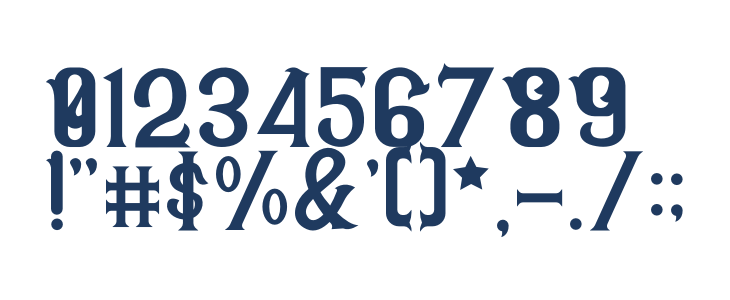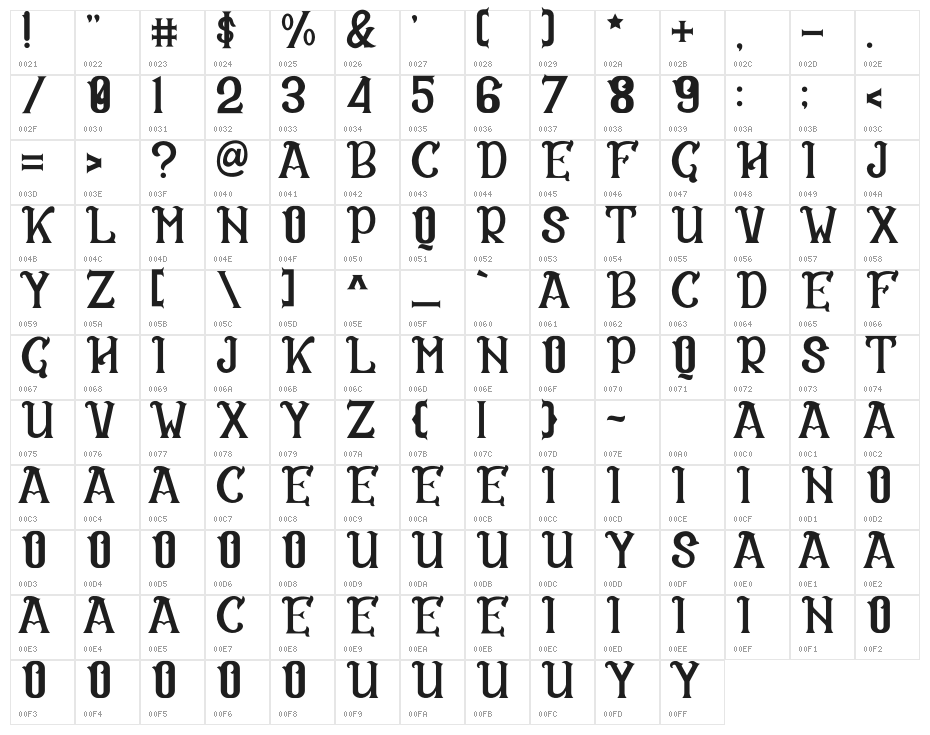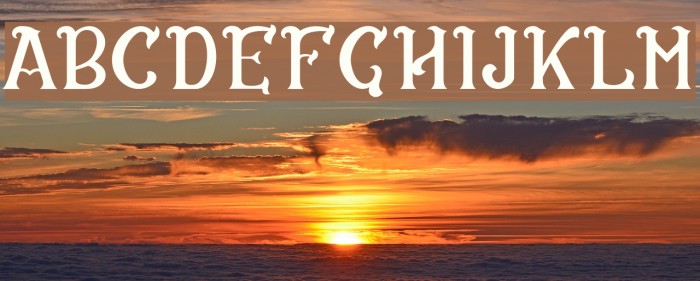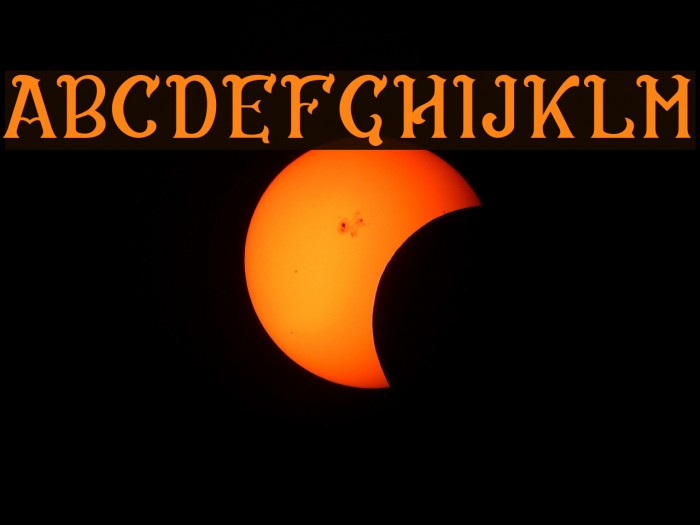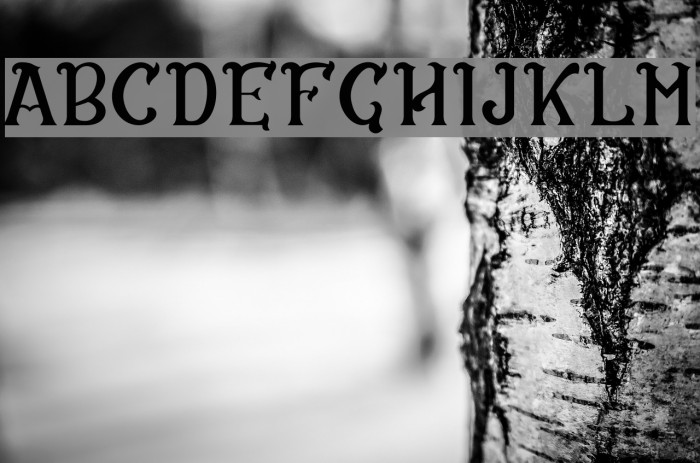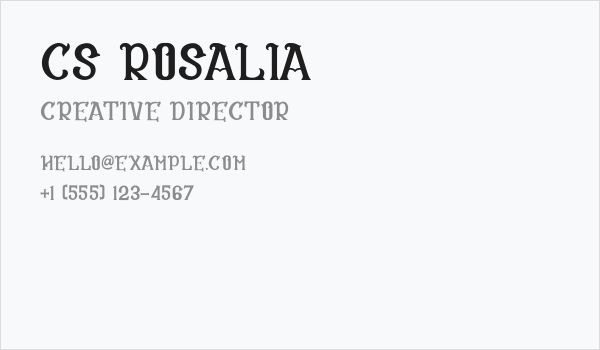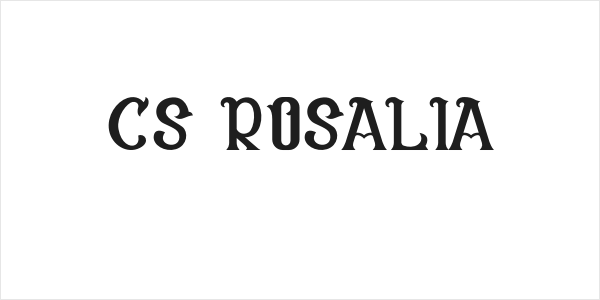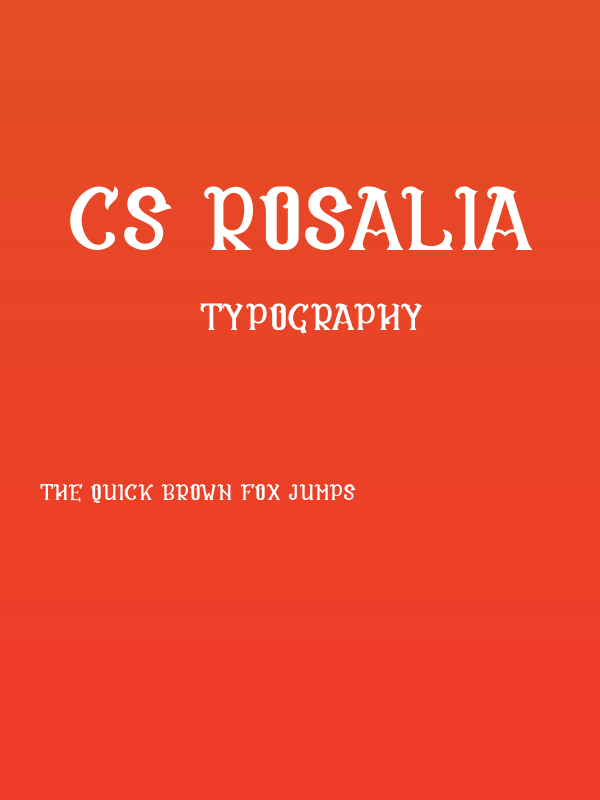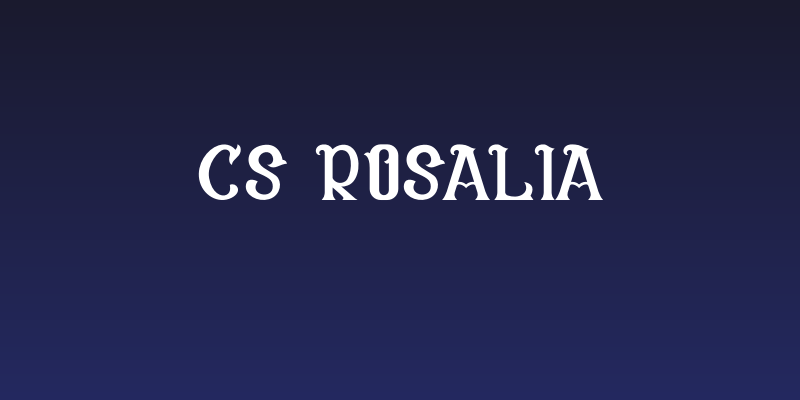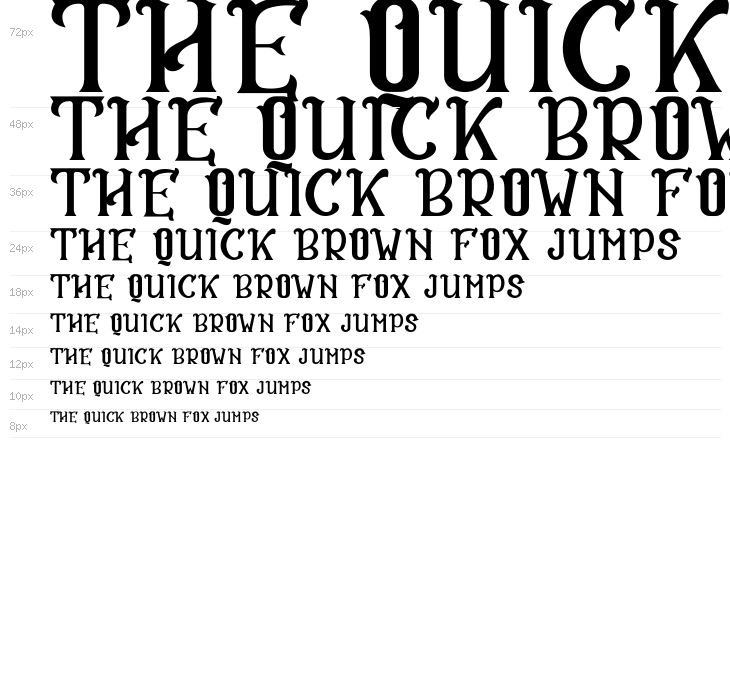
CS Rosalia Font
CS Rosalia Description
This font features a unique blend of classic and modern elements, characterized by its bold and decorative style. The uppercase letters exhibit a distinct flair with sharp, angular serifs and intricate detailing that adds a sense of elegance and sophistication. The lowercase letters maintain this decorative theme, offering a cohesive look across the alphabet. The numerals are bold and consistent, ensuring readability while maintaining the font's overall aesthetic. Special characters are crafted with the same attention to detail, making them stand out while remaining harmonious with the rest of the typeface. This font is ideal for projects that require a touch of vintage charm combined with modern boldness.
| Overall Style | Vintage, Decorative |
| Proposed Projects | Ideal for branding, posters, headlines, and any design project that seeks to convey elegance and sophistication. |